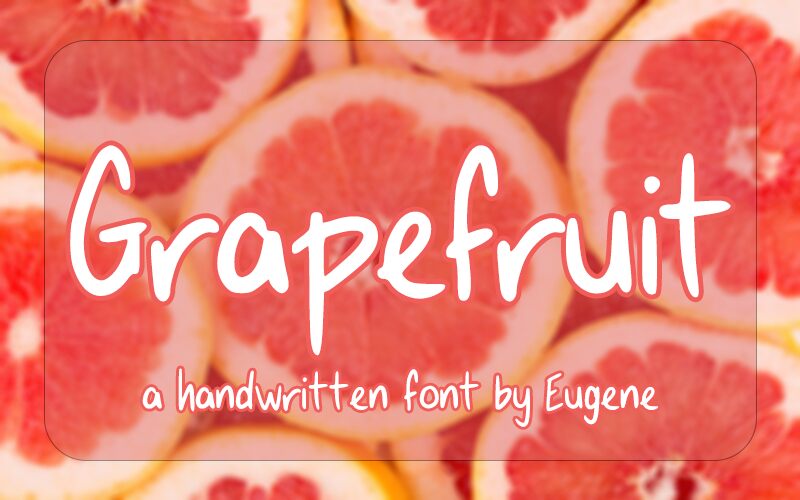
Grapefruit Regular
Grapefruit is a charming semi-light font designed by Eugene, perfect for adding a touch of whimsy to any project. Its casual handwritten style exudes an effortless grace and a personal touch, making it ideal for crafting invitations, greeting cards, and even social media graphics that convey warmth and friendliness. Use Grapefruit in branding materials for cafes, bakeries or other niche businesses to create a unique and approachable image. This font's versatility works well in fashion blogs or magazines where you need to convey easygoing style without sacrificing sophistication. Add some zest to your design with Grapefruit!
First time trying to make a font! Sizing is a bit small and you'll likely have to adjust the space between the lines~